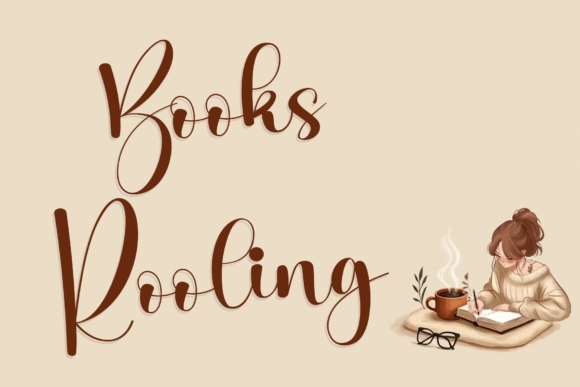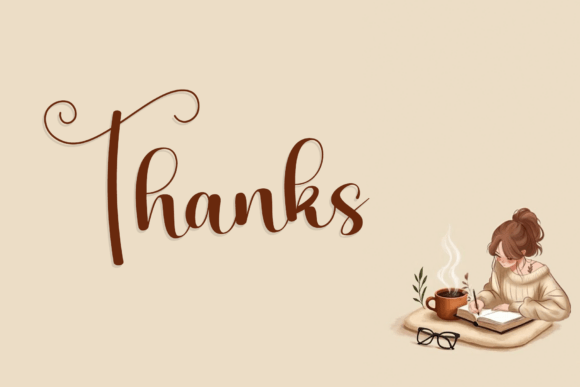
Deddy Font: Elevate Your Brand with Sophistication and Rhythm
In the world of typography, few fonts manage to strike a balance between elegance and warmth. Deddy Font is one such exceptional typeface that seamlessly merges a calligraphic style with a warm, organic aesthetic. This sophisticated and rhythmic script font is perfect for designers and crafters looking to add a touch of luxury and artisanal charm to their projects.
The Characteristics of Deddy Font
Deddy Font boasts a unique set of characteristics that set it apart from other script fonts. Its high-contrast visual rhythm is achieved through thick, grounded downstrokes and delicate hairline connectors. This contrast creates a sense of drama and sophistication, making it ideal for high-end branding and marketing projects.
The defining feature of Deddy Font, however, is its sweeping, looping ascenders. These elegant flourishes give the font a sense of customized, artisanal artistry, as if each letter was crafted by hand. This distinctive trait makes Deddy Font a premier choice for artisanal food branding, boutique product packaging, upscale lifestyle marketing, and creative editorial titles.
Perfect for Artisanal and Luxury Brands
Deddy Font’s unique blend of sophistication and warmth makes it an excellent fit for brands that value high-end quality and artisanal craftsmanship. Whether you’re working on branding for a boutique bakery, a craft brewery, or a luxury fashion label, Deddy Font is sure to elevate your project.
Its use in artisanal food branding is particularly noteworthy. The font’s warm, organic feel evokes a sense of homemade quality, while its sophisticated rhythm and elegant ascenders convey a sense of refinement and luxury. This balance makes Deddy Font perfect for labeling gourmet foods, specialty teas, or artisanal chocolates.
Deddy Font’s versatility extends beyond branding and packaging. Its elegant, rhythmic quality makes it an excellent choice for creative editorial titles, such as those found in high-end magazines, fashion publications, or lifestyle journals.
Designers can also use Deddy Font in digital applications, such as website headers, social media graphics, and advertising campaigns. Its sophisticated and artisanal feel will add a touch of luxury to any project, setting it apart from more generic fonts.
Why Choose Deddy Font?
So, why choose Deddy Font over other script fonts? Here are a few compelling reasons:
- Unique blend of sophistication and warmth: Deddy Font balances elegance with a warm, organic aesthetic, making it perfect for high-end branding and marketing projects.
- High-contrast visual rhythm: Thick downstrokes and delicate hairline connectors create a dramatic and sophisticated effect.
- Sweeping, looping ascenders: These elegant flourishes give Deddy Font a customized, artisanal feel.
- Versatile design applications: Deddy Font can be used in branding, packaging, editorial design, digital applications, and more.
Tips for Using Deddy Font
To get the most out of Deddy Font, here are a few tips:
- Use it sparingly: Deddy Font’s elegance and sophistication can be overwhelming if overused. Use it as a headline font or for key branding elements.
- Pair it with complementary fonts: Combine Deddy Font with simpler fonts to create visual interest and hierarchy.
- Experiment with colors and textures: Deddy Font’s warm, organic feel pairs well with earthy colors and textures.
Deddy Font is a sophisticated and rhythmic script font that offers a unique blend of elegance and warmth. Its high-contrast visual rhythm, sweeping ascenders, and artisanal feel make it perfect for high-end branding, marketing projects, and creative editorial design. Whether you’re a designer or crafter, Deddy Font is sure to elevate your project and add a touch of luxury and sophistication.